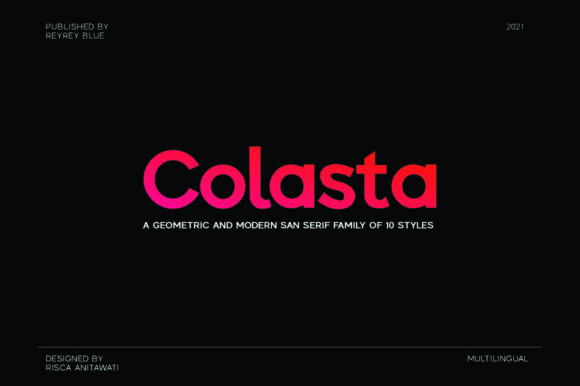
Introducing Colasta Font: The Ultimate Sans Serif for Creative Projects
Are you tired of using the same old fonts for your creative projects? Look no further than Colasta Font, a minimal and neat sans serif font that’s perfect for making your ideas stand out. In this article, we’ll dive into the world of Colasta Font and explore its features, benefits, and uses.
What is Colasta Font?
Colasta Font is a modern sans serif font designed to be versatile and adaptable. Its clean and minimalist aesthetic makes it an excellent choice for a wide range of projects, from branding and advertising to digital media and publishing. With its simple yet elegant design, Colasta Font is sure to elevate your creative ideas and give them a professional touch.
Key Features of Colasta Font
- Minimal and Neat Design: Colasta Font boasts a clean and minimalist design that’s perfect for creating a professional and sophisticated look.
- Sans Serif Style: The font’s sans serif style makes it easy to read and understand, even at small sizes.
- Highly Versatile: Colasta Font can be used for a wide range of projects, from digital media to print materials.
- Easily Customizable: The font is highly customizable, allowing you to adjust its size, color, and style to suit your needs.
Benefits of Using Colasta Font
So why choose Colasta Font for your creative projects? Here are just a few benefits of using this amazing font:
- Improved Readability: Colasta Font’s clear and simple design makes it easy to read, even for extended periods.
- Enhanced Professionalism: The font’s sleek and modern aesthetic gives your projects a professional and polished look.
- Increased Versatility: Colasta Font can be used for a wide range of projects, making it a great addition to your font library.
- Unique and Creative: The font’s unique design allows you to add a touch of personality to your projects and stand out from the crowd.
How to Use Colasta Font
Using Colasta Font is easy! Here are a few tips to get you started:
- Pair it with Other Fonts: Colasta Font pairs well with other sans serif fonts, creating a harmonious and professional look.
- Experiment with Colors: Try out different colors and gradients to add some personality to your projects.
- Adjust Font Sizes: Experiment with different font sizes to create visual hierarchy and emphasize important information.
- Add Effects and Textures: Add some texture and effects to your text to give it a unique and creative touch.
Colasta Font in Digital Media
Colasta Font is perfect for digital media, including:
- Web Design: Use Colasta Font to create clean and professional-looking websites that are easy to read.
- Social Media: Stand out on social media with Colasta Font’s unique and creative design.
- Digital Advertising: Use Colasta Font to create eye-catching and effective digital ads.
- Email Marketing: Add a touch of professionalism to your email marketing campaigns with Colasta Font.
Colasta Font in Print Media
Colasta Font is also perfect for print media, including:
- Brochures and Flyers: Use Colasta Font to create eye-catching and informative brochures and flyers.
- Business Cards: Add a touch of professionalism to your business cards with Colasta Font.
- Posters and Banners: Use Colasta Font to create bold and eye-catching posters and banners.
- Magazines and Newspapers: Colasta Font is perfect for use in magazines and newspapers, where readability is key.
In conclusion, Colasta Font is a versatile and creative sans serif font that’s perfect for a wide range of projects. Its clean and minimalist design makes it easy to read and understand, while its highly customizable nature allows you to add a touch of personality to your creative ideas. Whether you’re working on a digital project or a print project, Colasta Font is sure to elevate your designs and make them stand out.